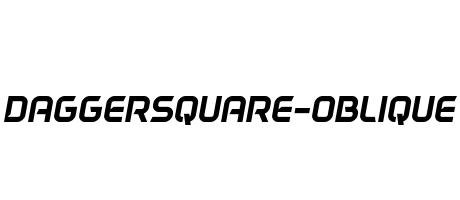
Daggersquare
By Néstor Delgado
DAGGERSQUARE-OBLIQUE is a bold, dynamic sans-serif typeface. Its sharp, angular letterforms are slightly slanted, giving it an aggressive, energetic feel. The thick strokes and consistent weight create a sense of power and speed, making it ideal for headlines or branding needing a strong visual impact. The oblique style adds a sense of motion and excitement.